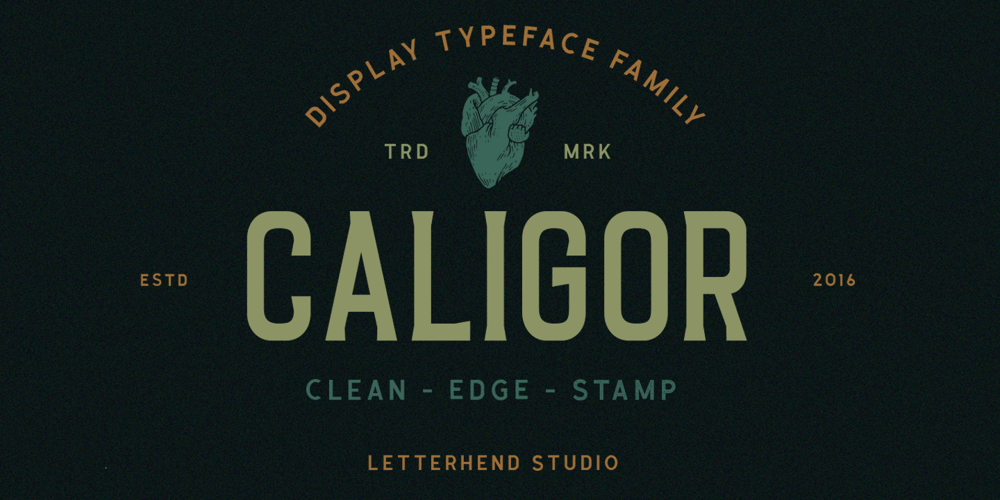
Caligor Font Family was designed by Hendry Juanda and published by Letterhend. Caligor contains 6 styles and family package options. Caligor is a Display Typeface Family which is suitable for you who needs a typeface for headline, logotype, apparel, invitation, branding, packaging, advertising etc. This typeface is comes in uppercase, lowercase, punctuations, symbols & numerals, stylistic set alternate, ligatures, etc also support multilingual and already PUA encoded. this font come in 3 versions, regular, edge, and stamp. the regular with clean and neat look of the font, edge version is look like a little bit of the normal version with rough edge, and stamp version that gives an aged feel on it.